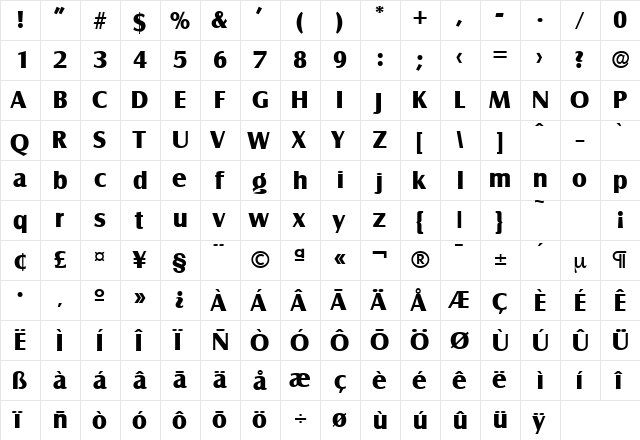
Salzburg-Serial-ExtraBold Regular Font Preview
Salzburg-Serial-ExtraBold Regular
Salzburg-Serial-ExtraBold Regular Font Details
Design Context for Salzburg-Serial-ExtraBold Typeface
Salzburg-Serial-ExtraBold takes a measured approach to typography — its balanced proportions and neutral character make it a reliable workhorse for both digital and print work. Its bold stroke weight gives it real presence on the page.